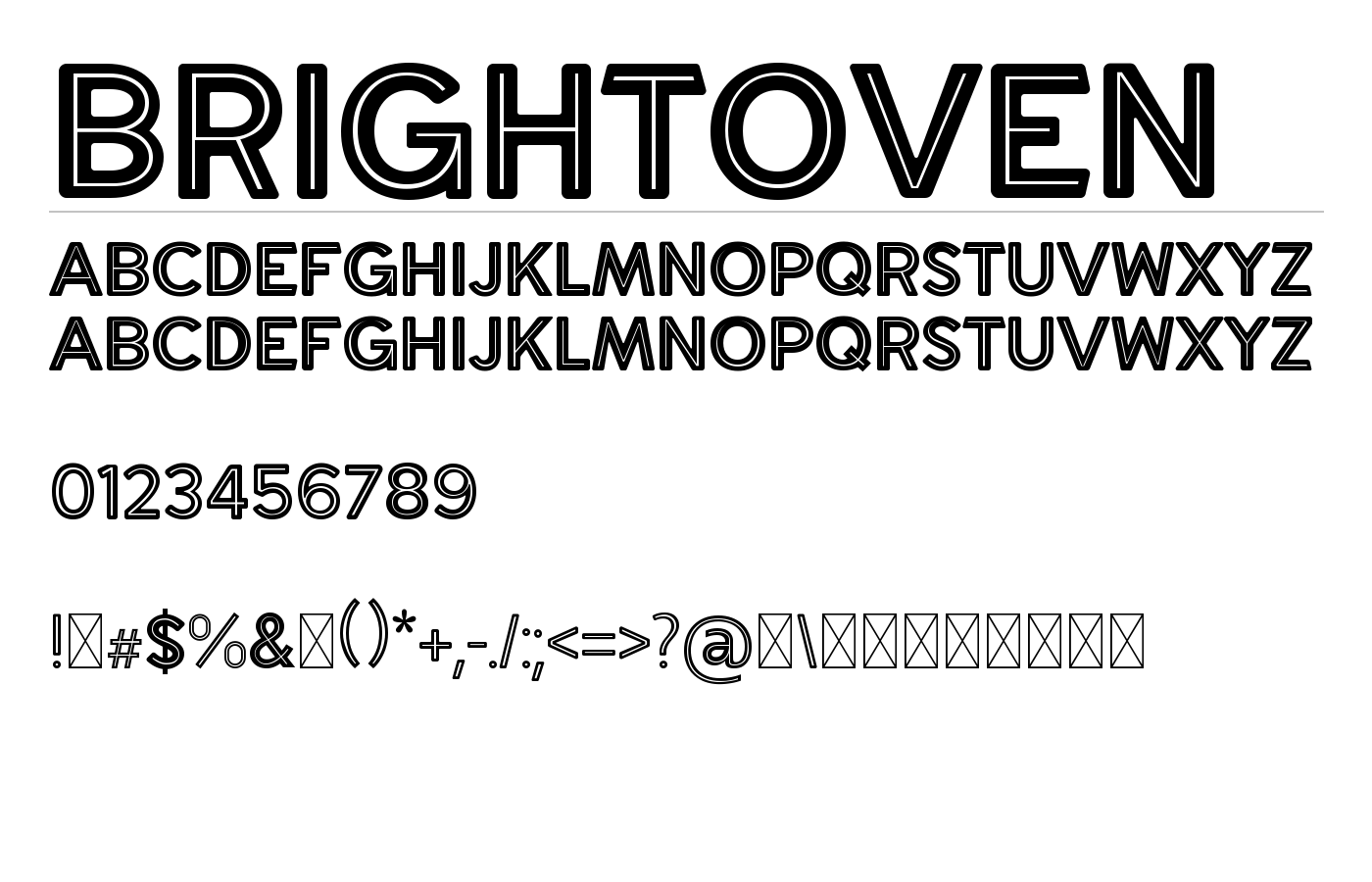
BRIGHTOVEN is a bold, geometric sans serif font with a modern and clean look, featuring rounded corners and double-line strokes that add a distinctive, airy feel. Its strong presence and clear letterforms make it ideal for eye-catching headlines, branding, and logos where a contemporary and approachable style is desired. This font works well in creative and tech-savvy contexts, offering a fresh, vibrant personality that stands out without being overly complex.
BRIGHTOVEN Font